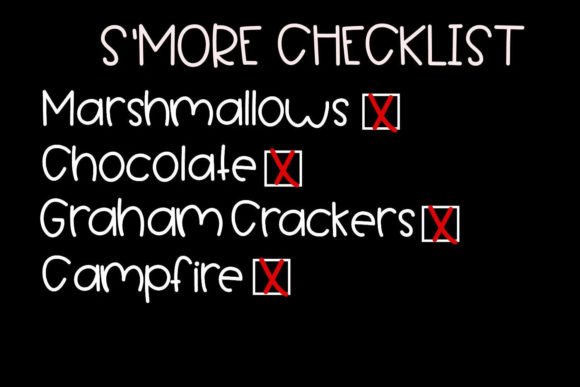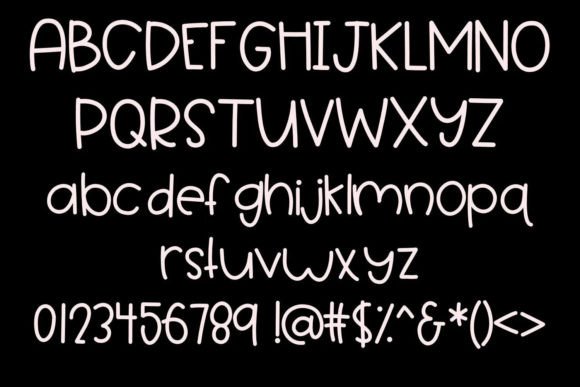
About Marshmallow Floof Font
Marshmallow Floof is a cool and whimsical handwritten font designed to bring a sense of fun and playfulness to your creative projects. This quirky font adds a unique and delightful touch that is sure to make your designs stand out. Whether you’re working on a water bottle, notebook, card, or any other project, Marshmallow Floof promises to bring a cool and fun vibe.
The cool and whimsical aesthetic of Marshmallow Floof is immediately noticeable, making it an excellent choice for projects that demand a lighthearted and unique look. The handwritten style adds a personalized touch, creating a visual experience that is both fun and memorable.
One of the standout features of Marshmallow Floof is its versatility. This font seamlessly integrates into various design contexts, making it suitable for a wide range of creative endeavors. Whether you’re crafting a card or designing a new project, Marshmallow Floof adapts to different applications with ease.
Incorporating Marshmallow Floof into your projects is an invitation to infuse them with a cool and fun personality. This handwritten font becomes a valuable tool, ready to add character and charm to your designs, making them both distinctive and enjoyable.
In summary, Marshmallow Floof is more than just a font; it’s a cool and fun design asset that brings a playful touch to your projects. With its quirky handwritten style, Marshmallow Floof stands ready to be the perfect companion for a variety of creative endeavors, making your designs cool, fun, and uniquely crafted.